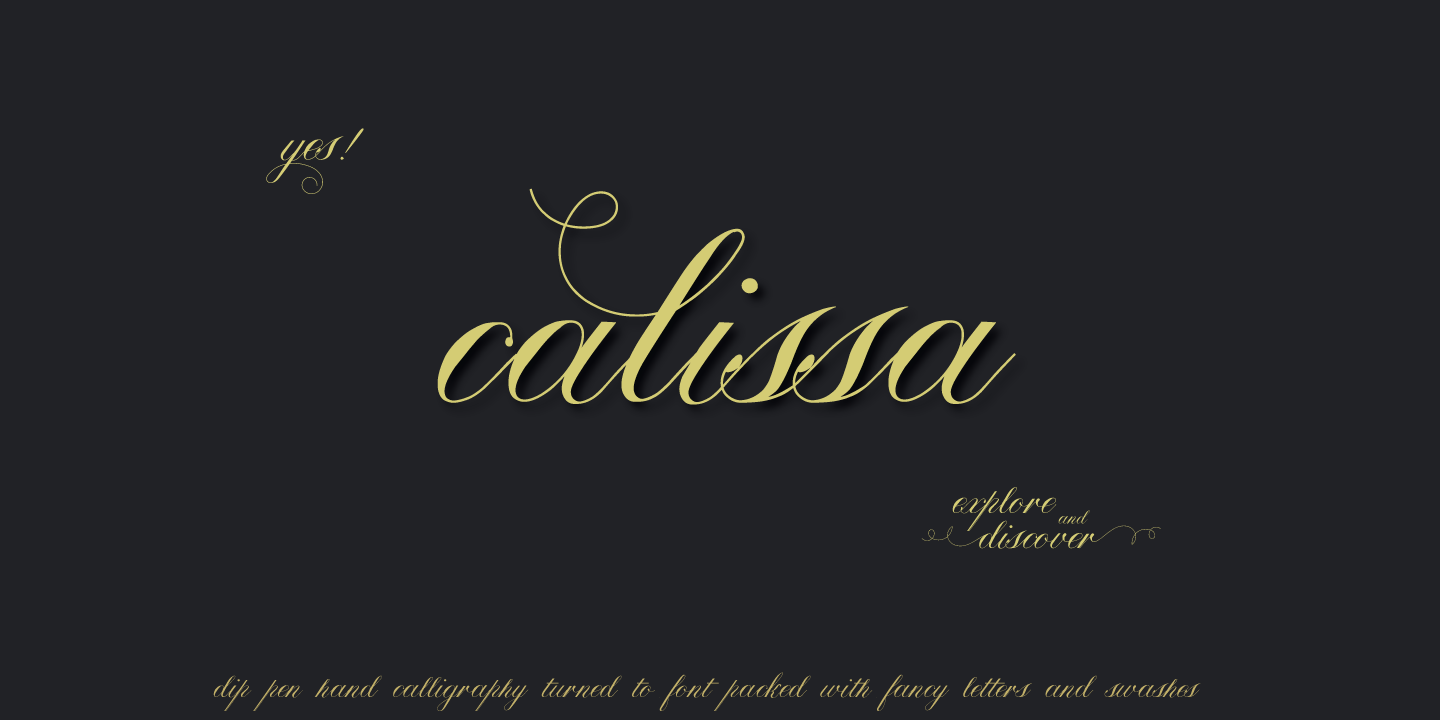
Calissa Pro Font is ideal for professional calligraphy services, luxury wedding stationery, high-end invitation design, elegant brand identities, sophisticated editorial layouts, premium beauty products, refined artistic projects, and graceful communication applications. This exquisite script typeface brings calligraphic mastery, professional elegance, and artistic sophistication to any project requiring typography that communicates refined taste, artisanal quality, and the timeless beauty of skilled penmanship and professional lettering artistry.
What makes Calissa Pro Font exciting is its exceptional embodiment of professional calligraphy through letterforms that flow with the precision and grace of master calligraphers and skilled lettering artists. The font features beautifully crafted character shapes with professional script proportions, elegant connecting strokes that create seamless letter flow, and refined flourishes that demonstrate the highest standards of calligraphic excellence and artistic penmanship. Its professional character represents the pinnacle of lettering artistry and calligraphic sophistication, making it perfect for brands that want to communicate luxury, craftsmanship, and the distinguished quality of professional artistic services and refined aesthetic excellence.
The Calissa Pro Font family typically includes regular weight with professionally designed uppercase and lowercase letters, elegant numerals, and comprehensive punctuation marks that maintain the font's calligraphic authenticity and professional appeal. The design emphasizes artistic excellence while providing practical typography options for contemporary luxury and professional communication applications that require both calligraphic beauty and functional versatility.
Whether you're creating luxury brand identities or developing professional stationery designs, Calissa Pro Font Free Download provides unmatched calligraphic authenticity and professional appeal. This typeface excels in applications where its elegant character can communicate artistic excellence and refined sophistication. Its luxurious aesthetic makes it particularly effective for wedding services, luxury brands, and professional artists that want to associate with calligraphic mastery and artistic distinction. The font's graceful presence helps establish artistic credibility while ensuring memorable recognition through typography that celebrates the timeless tradition of Calissa Pro Font Free Download professional calligraphy and artistic excellence.